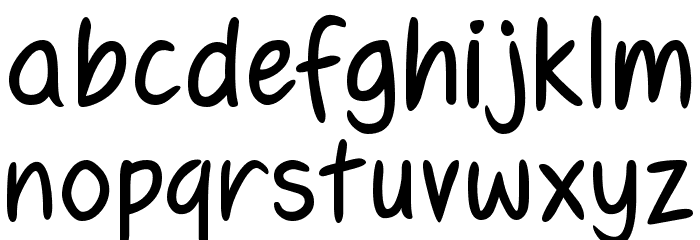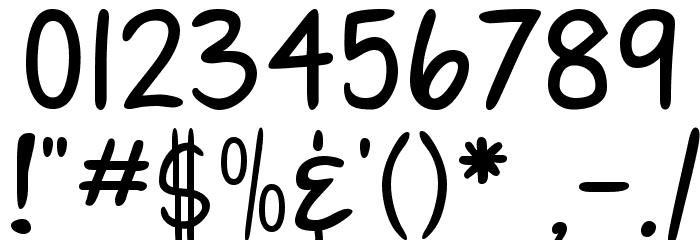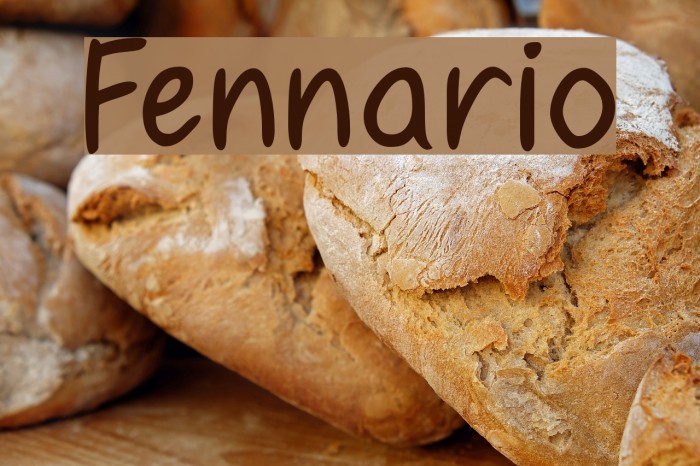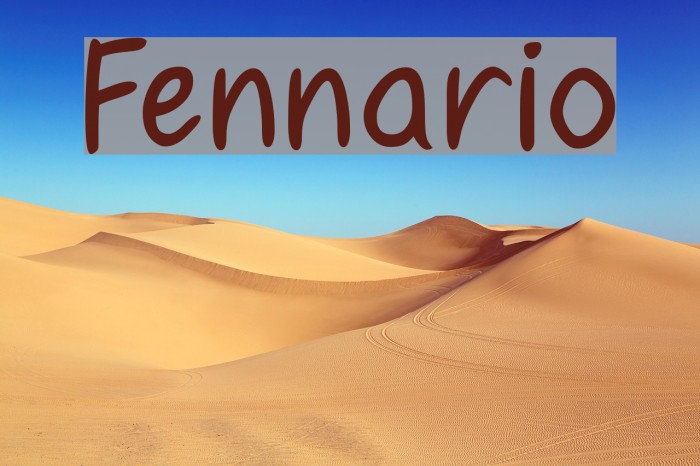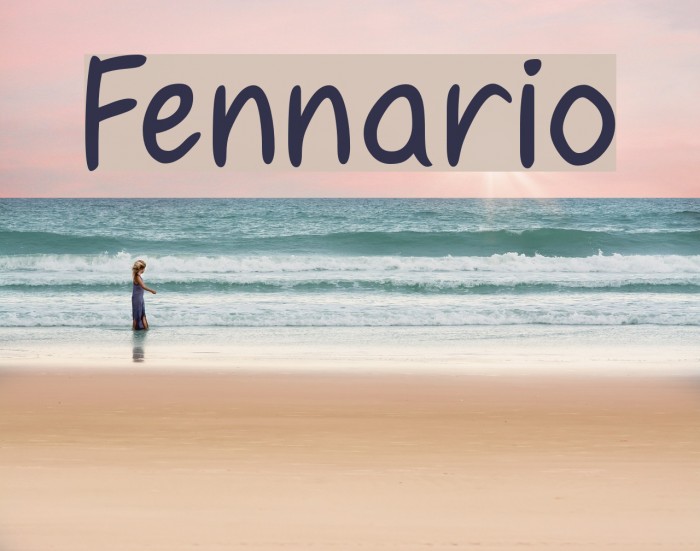
Fennario Font
This playful and energetic font features a handwritten style with smooth, rounded edges and a casual appearance. The letters are slightly slanted, adding a dynamic feel to the text. The uppercase and lowercase characters maintain a consistent flow, while the numbers and special characters complement the overall design. The font's informal and friendly nature makes it suitable for creative projects that require a personal touch. Its legibility is enhanced by the clear distinction between each character, making it versatile for various applications.
A playful, handwritten font with smooth, rounded edges and a casual style.
- Proposed Projects: Ideal for greeting cards, children's books, playful branding, and social media graphics.
- Overall Style: Casual
- Use Case: Headlines, Informal text, Creative projects